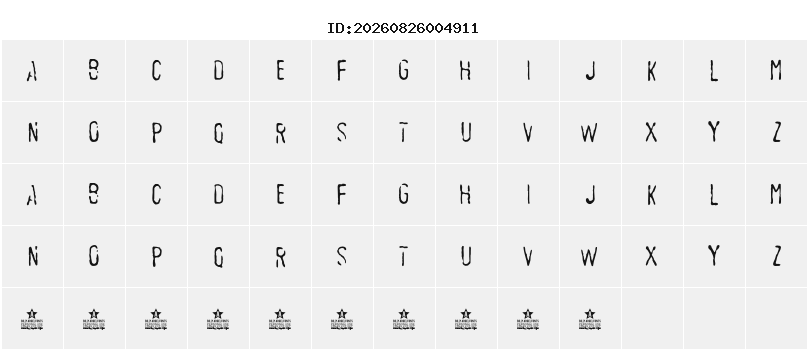
SEDEX PERSONAL USE Preview
• Font Name: SEDEX PERSONAL USE
• Designer: BILLY ARGEL
About SEDEX PERSONAL USE.otf
SEDEX PERSONAL USE.otf is a modern, elegant sans-serif font designed for ultimate readability and visual harmony. Perfect for branding, headlines, web design, and print materials.